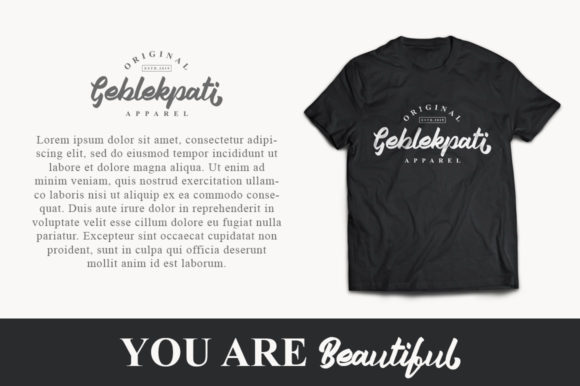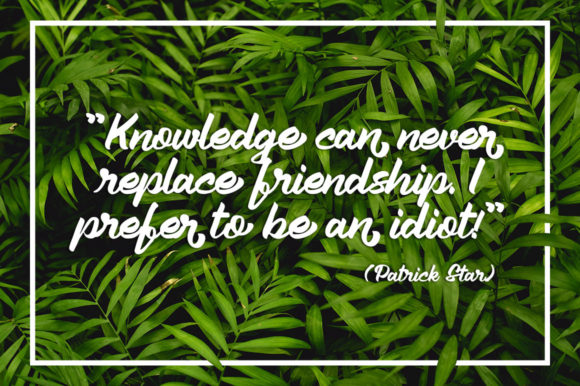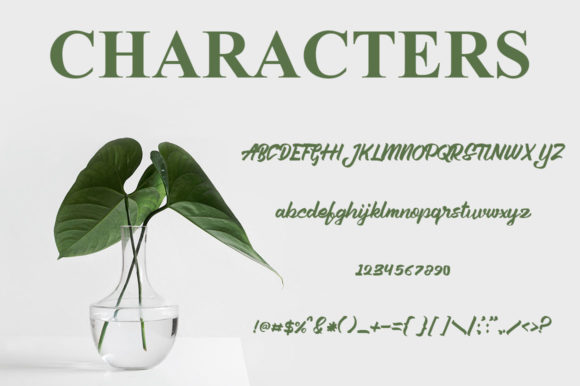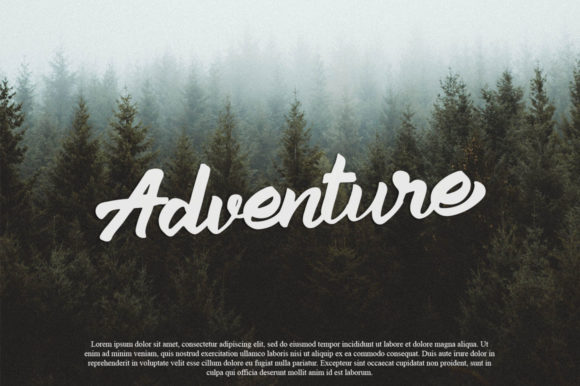
Introducing Aleena Font: The Simple yet Stunning Brushed Handwritten Font
Are you on the hunt for a font that exudes elegance, simplicity, and versatility? Look no further than Aleena Font, a beautiful brushed handwritten font that is sure to capture your heart. With its incredibly versatile style, Aleena Font is perfect for creating a wide range of designs, from gorgeous wedding invitations and beautiful stationary art to eye-catching social media posts and more.
The Characteristics of Aleena Font
Aleena Font is a simple yet stunning font that boasts a unique, brushed handwritten style. Its delicate and smooth lines give it a feminine and elegant feel, making it perfect for designs that require a touch of sophistication. The font’s versatility is one of its standout features, allowing you to use it for a variety of projects, from formal to informal.
Uses of Aleena Font
So, what can you create with Aleena Font? The possibilities are endless! Here are some ideas to get you started:
- Wedding Invitations: Create stunning wedding invitations that set the tone for the big day. Aleena Font’s elegant style makes it perfect for formal wedding invitations, and its versatility allows you to customize it to fit your wedding theme.
- Stationary Art: Add a touch of elegance to your stationary art with Aleena Font. Use it to create beautiful greeting cards, thank you cards, and more.
- Social Media Posts: Make your social media posts stand out with Aleena Font. Its eye-catching style is sure to grab the attention of your followers and make your posts go viral.
- Branding: Use Aleena Font to create a cohesive brand identity. Its unique style will help you stand out from the competition and make your brand more recognizable.
Why Choose Aleena Font?
So, why should you choose Aleena Font for your next project? Here are just a few reasons:
- Unique Style: Aleena Font boasts a unique, brushed handwritten style that will set your designs apart from the rest.
- Versatility: Aleena Font is incredibly versatile, making it perfect for a wide range of projects, from formal to informal.
- Elegance: Aleena Font exudes elegance and sophistication, making it perfect for designs that require a touch of class.
Tips for Using Aleena Font
Here are a few tips for using Aleena Font in your designs:
- Pair it with Other Fonts: Aleena Font pairs well with other fonts, so don’t be afraid to experiment with different combinations.
- Use it for Headings: Aleena Font is perfect for headings and titles, so use it to add a touch of elegance to your designs.
- Experiment with Colors: Aleena Font looks great in a variety of colors, so experiment with different colors to find the one that works best for your design.
In conclusion, Aleena Font is a simple yet stunning brushed handwritten font that is perfect for designers and crafters looking for a versatile and elegant font. With its unique style, versatility, and ease of use, Aleena Font is sure to become a favorite in your font collection. So why wait? Fall in love with Aleena Font today and start creating gorgeous designs that will leave a lasting impression!